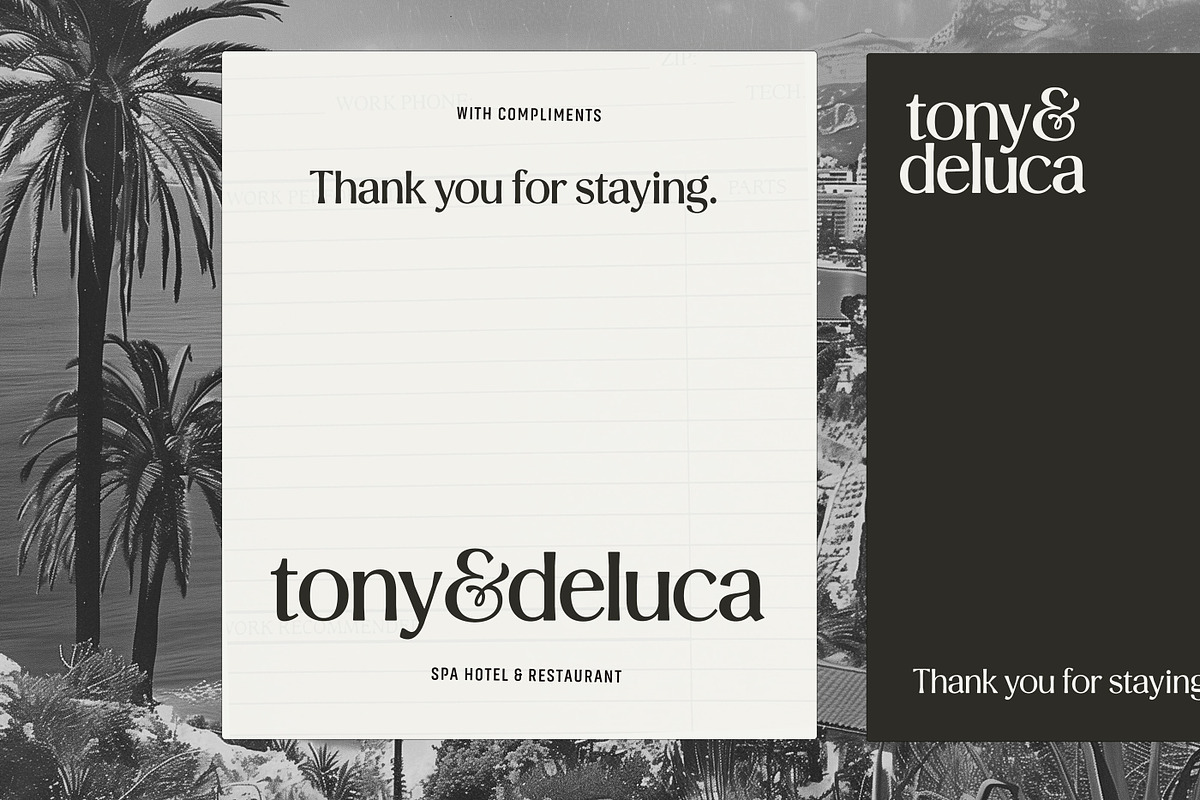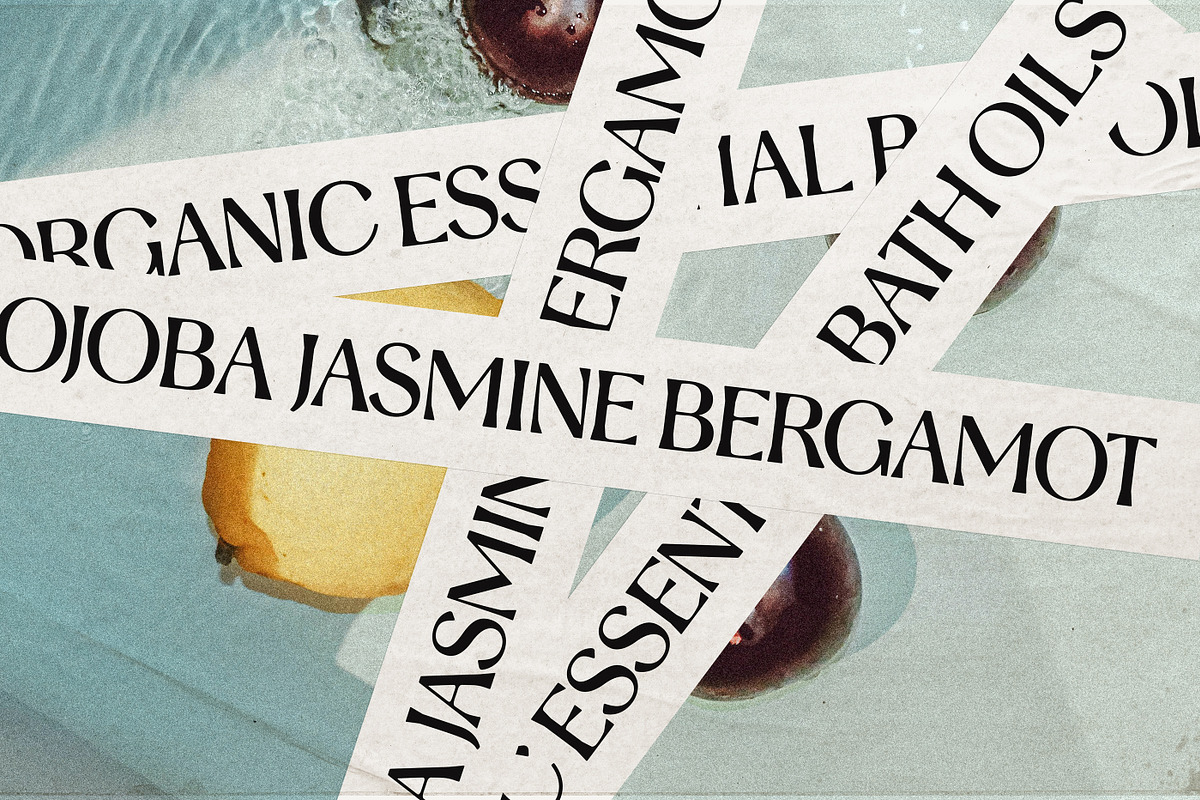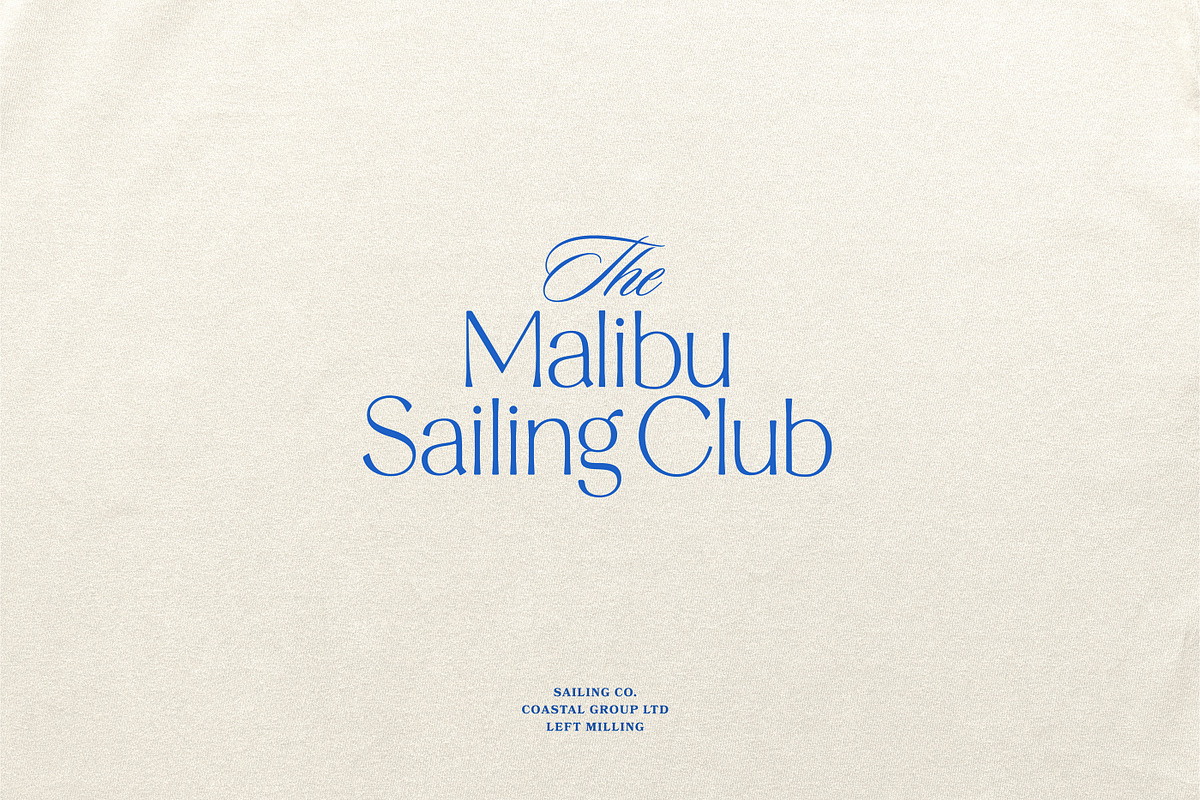
Stylish Aesthetic Typeface
Stylish Aesthetic Typeface by Nicky Laatz is a font selected for branding, posters, packaging, typography.
Why Stylish Aesthetic Typeface is worth a look
Stylish Aesthetic Typeface by Nicky Laatz fits naturally into Branding, posters, packaging, typography.